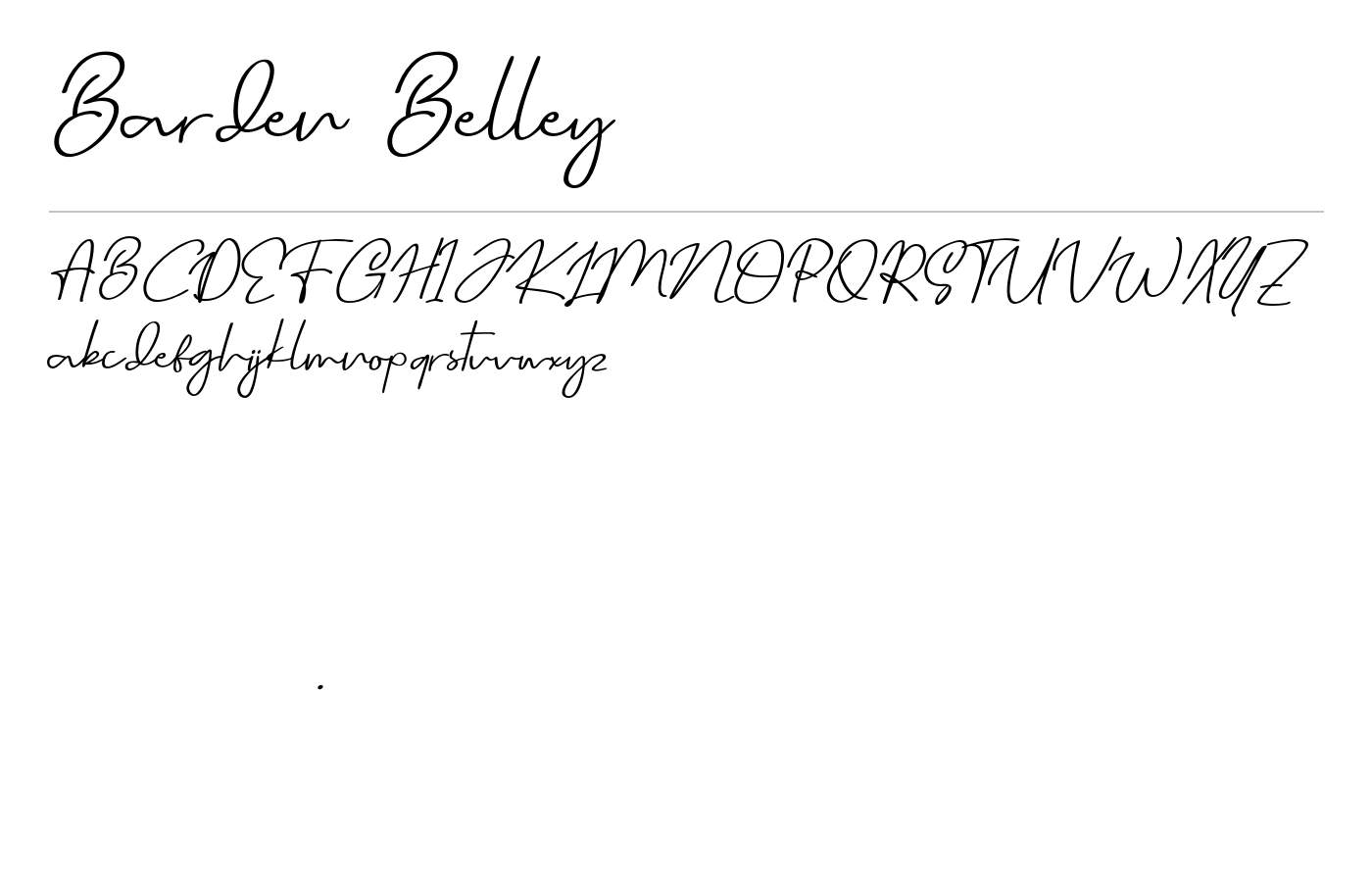
Barden Belley is a delicate script font with a light, airy feel characterized by elegant, flowing strokes that mimic natural handwriting. Its slender letterforms and smooth curves convey a sophisticated and personal touch, making it perfect for invitations, branding, and other designs that seek a graceful, intimate style. This font adds a refined, yet approachable charm to any project, ideal for fashion, beauty, and lifestyle communication.
Barden Belley Font
About Barden Belley Font